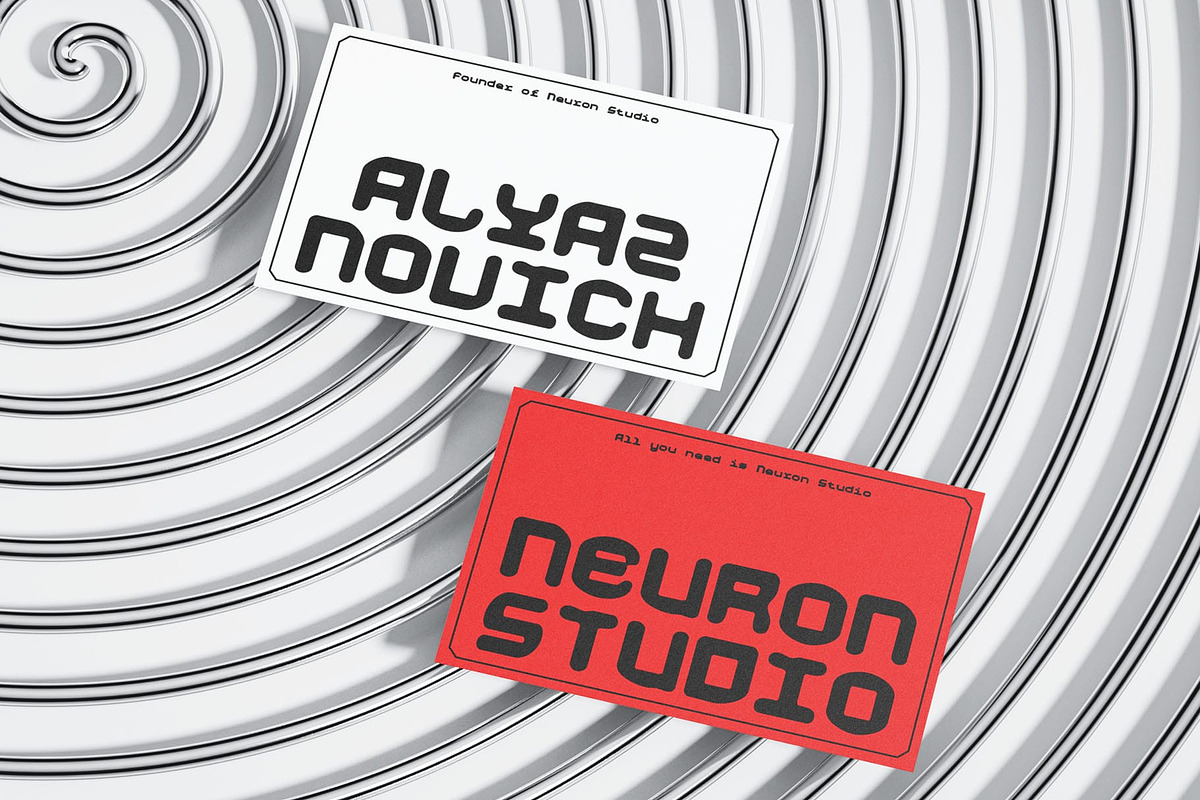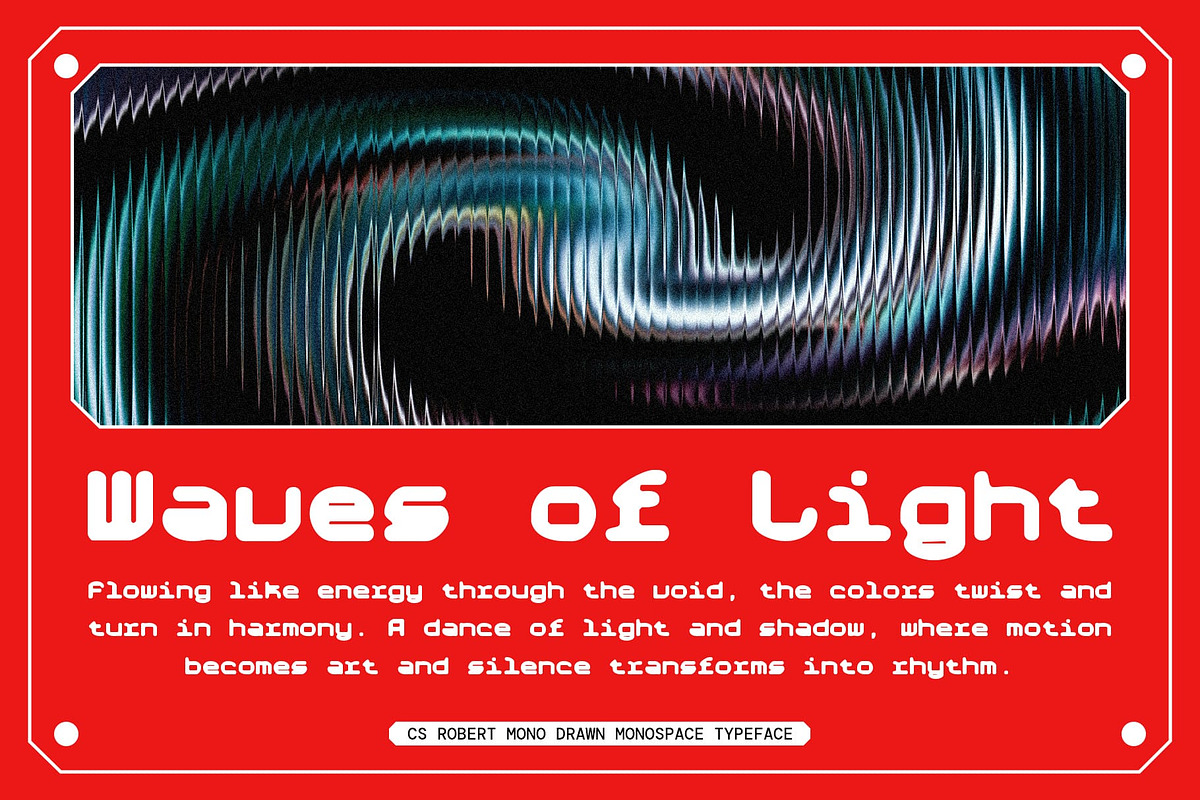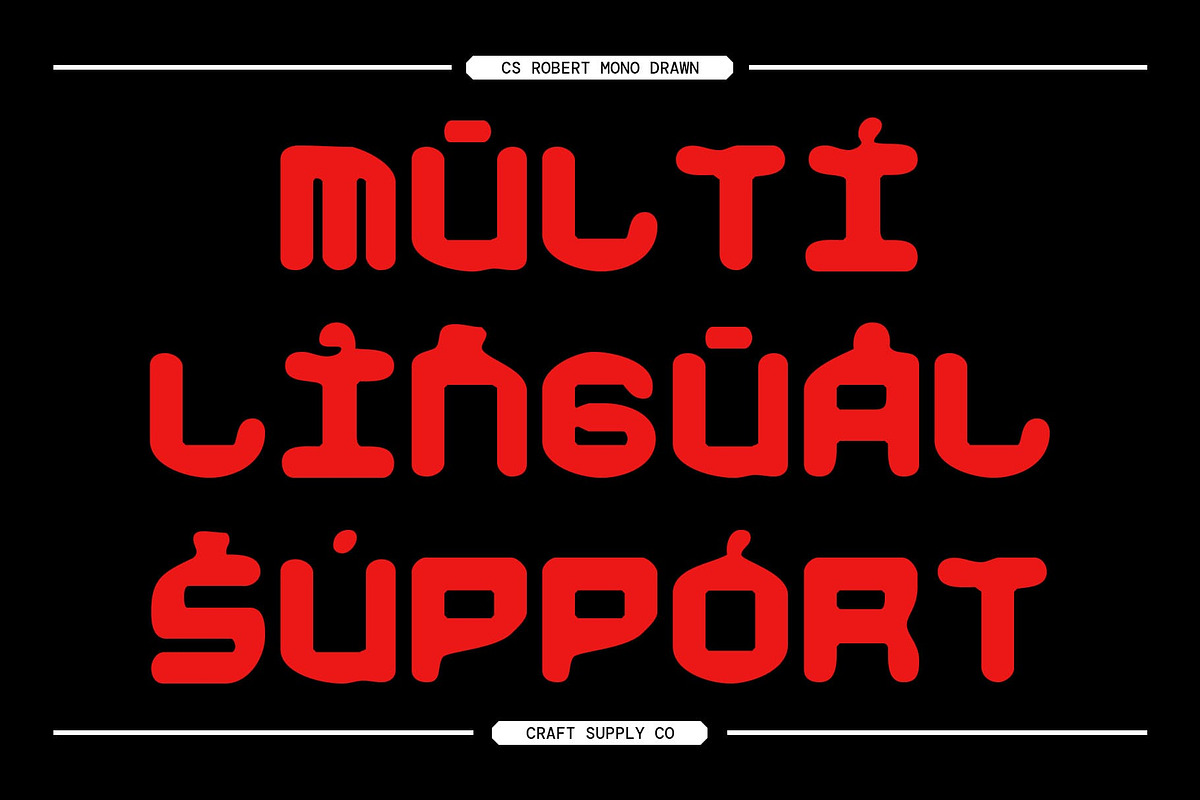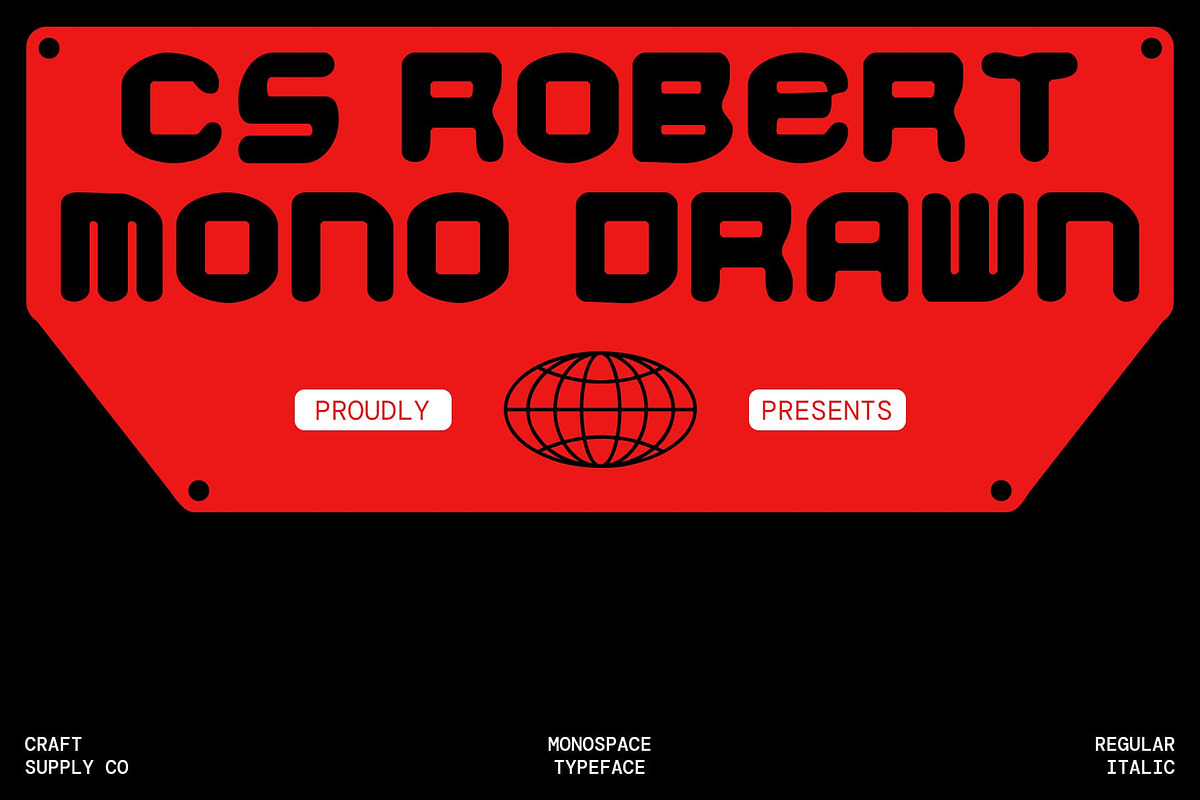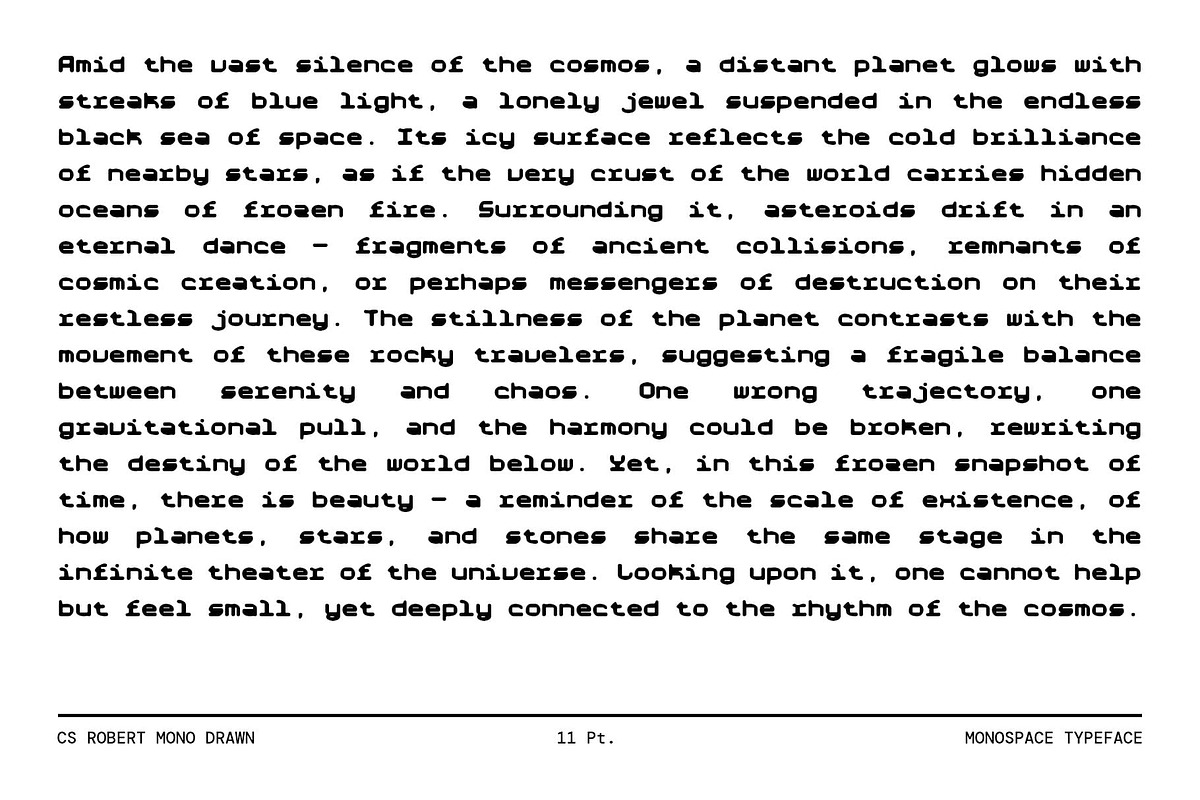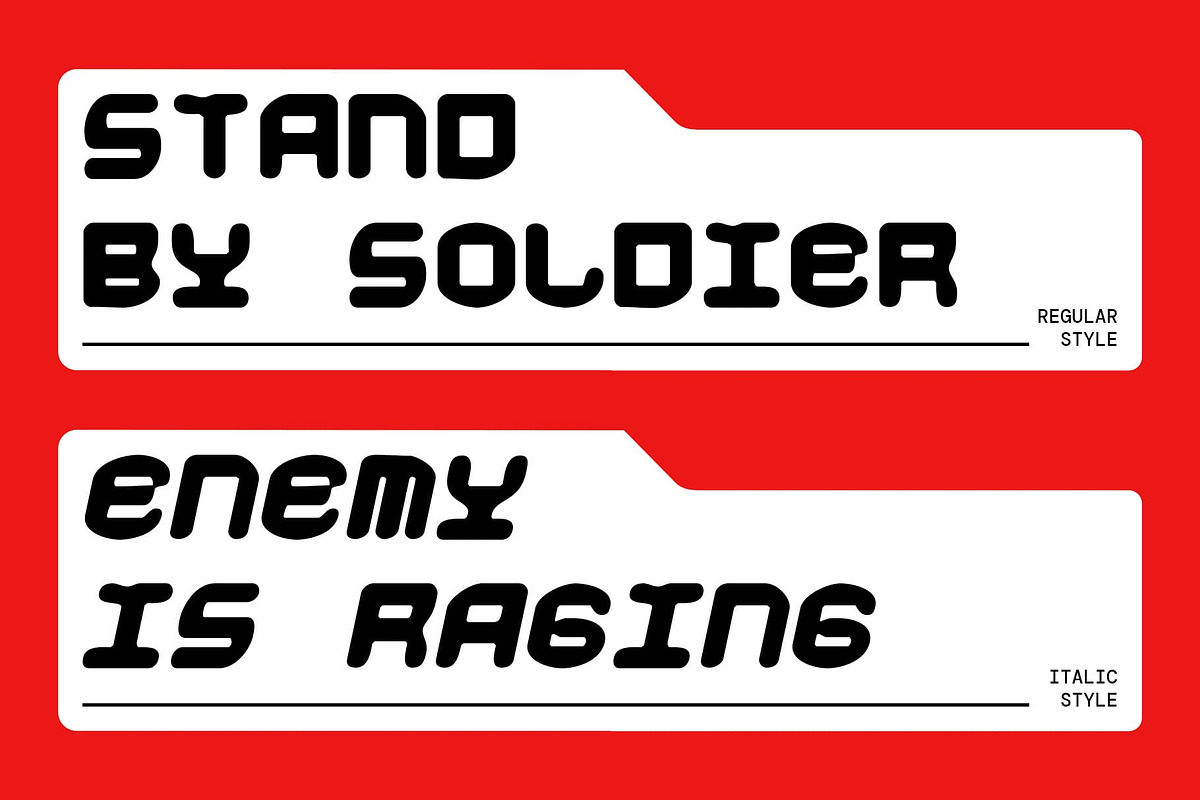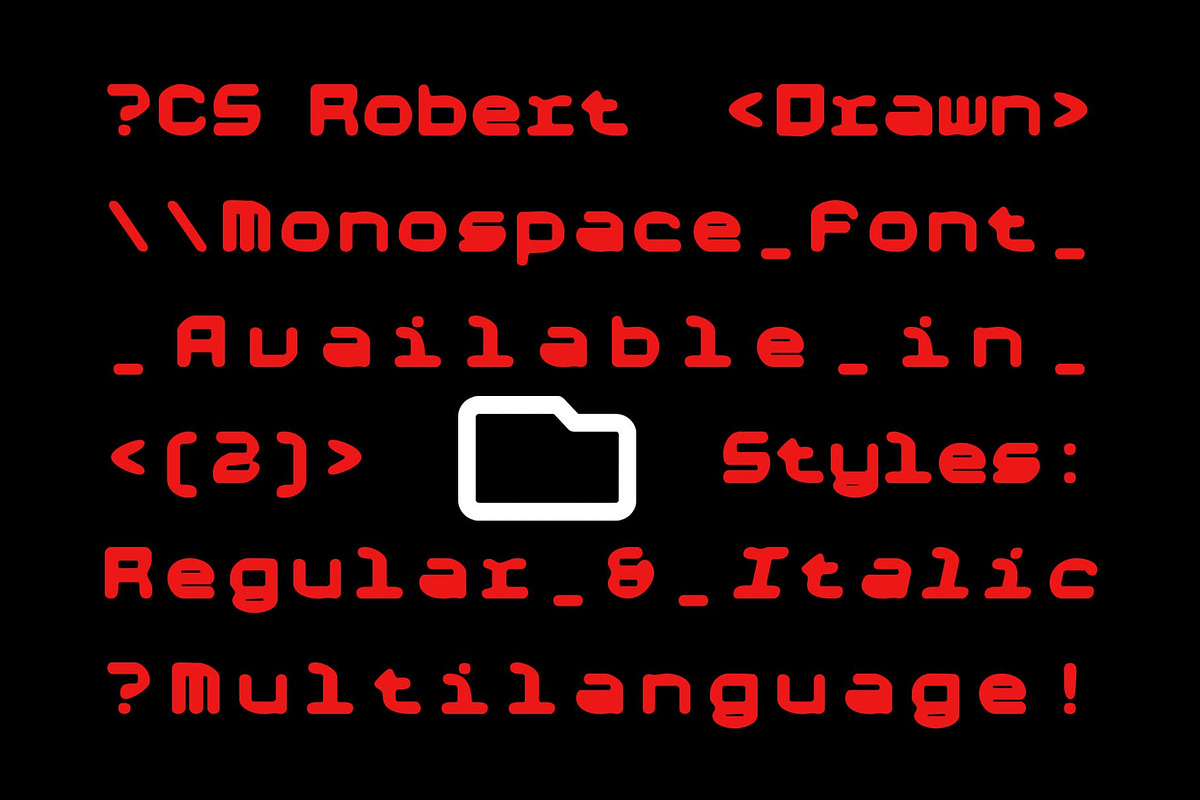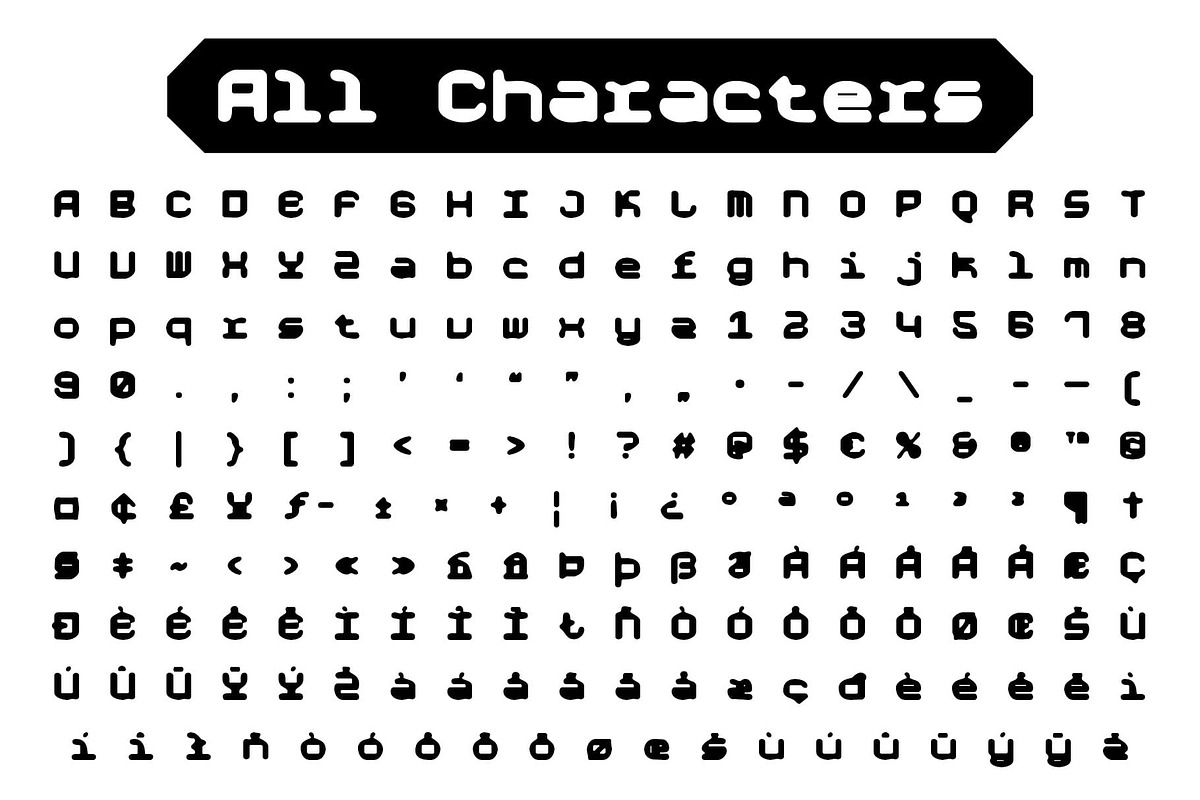
CS Robert Mono Drawn
CS Robert Mono Drawn: Retro Pixel Monospaced Display with Handmade Charm
Monospaced Display Font with 90s Pixel Inspiration This is a monospaced display font that combines 90s-inspired pixel shapes with a subtle drawn effect. Its retro aesthetic evokes nostalgia while maintaining a playful and visually engaging style.
Even Spacing for Neat and Consistent Appearance Each character is evenly spaced, providing a clean, structured, and consistent look. The monospaced design ensures readability and a harmonious rhythm, making it ideal for coding visuals, game interfaces, and other structured layouts.
Handmade Texture Adds Expressive Personality The drawn detailing introduces a handcrafted texture, giving each character life, creativity, and unique artistic flair. This combination of pixel precision and handmade touches results in a lively, expressive, and distinctive typeface.
Ideal for Posters, Branding, Games, and Digital Projects This consistent and structured monospaced font is perfect for projects that want to highlight retro charm, playful energy, and unique character. Its balanced mix of pixel shapes, monospaced structure, and handcrafted artistry makes it ideal for posters, branding, games, or digital applications.
Elevate Designs with Nostalgic Creativity With precise monospaced forms, nostalgic pixel aesthetics, and handmade detailing, this creative and handcrafted font transforms typography into a fun, distinctive, and engaging visual statement. It’s a versatile choice for designers seeking retro-inspired yet playful and expressive lettering.